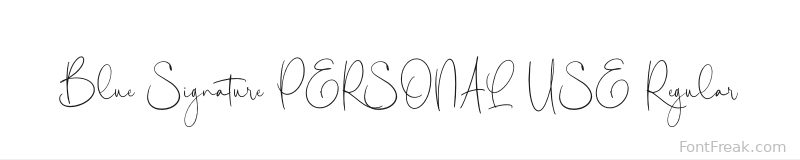
Blue Signature PERSONAL USE Regular
Blue Signature PERSONAL USE Regular by Mans Greback is a beautifully crafted handwritten font that embodies elegance and sophistication. This script-style font features fluid strokes that mimic the natural flow of cursive writing, making it perfect for a variety of personal and creative projects. The stroke weight is delicate yet defined, with a moderate contrast that adds depth and character to each letter. The spacing is well-balanced, ensuring legibility while maintaining a whimsical aesthetic.
Ideal for personal use, this font shines in specific applications. It is particularly well-suited for wedding invitations, where its romantic flair can enhance the overall design. Additionally, it can elevate greeting cards, making heartfelt messages even more special. The flowing lines of Blue Signature also make it a great choice for branding materials, such as logos for artisanal shops or creative businesses, where a personal touch is key. Lastly, it can be utilized effectively in social media graphics, helping content creators convey a unique and stylish voice.
The target audience for Blue Signature PERSONAL USE Regular includes graphic designers looking for a distinctive touch in their projects, small business owners aiming to establish a memorable brand identity, and content creators seeking to enhance their digital presence with a personal flair.
What sets this font apart is its ability to convey both warmth and professionalism, making it versatile for many personal projects. The combination of its elegant curves and approachable style allows it to resonate with a wide audience. For those seeking a unique handwritten font, the Blue Signature PERSONAL USE Regular font free download offers an exceptional option that can elevate any design.